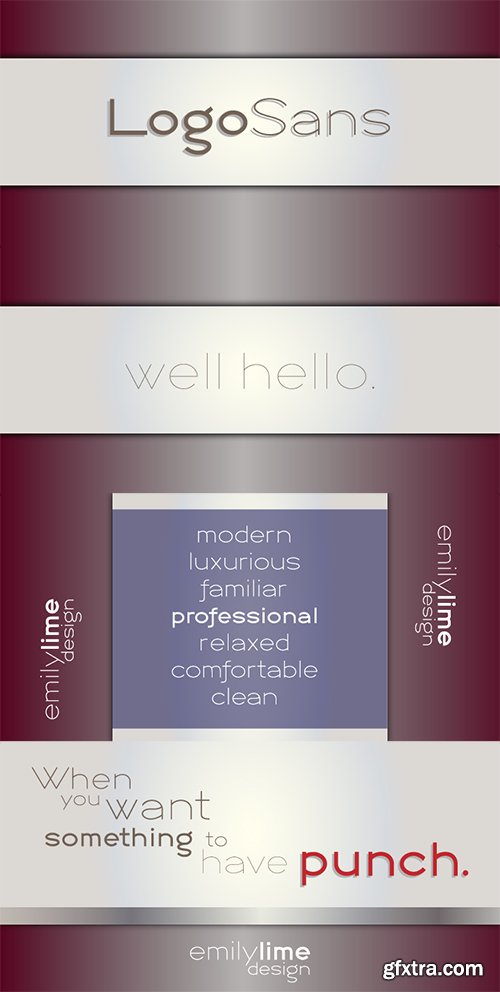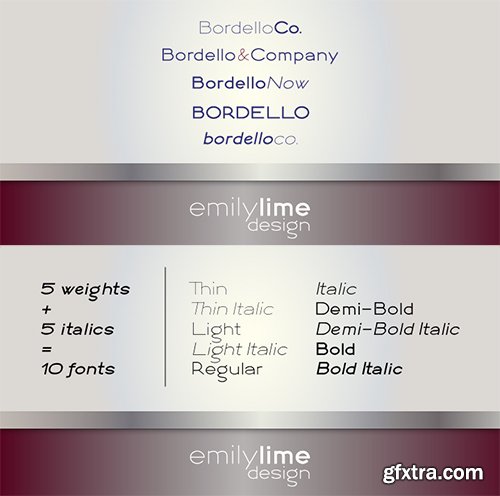
- Logo Sans is a clean, geometric sans-serif created with an obvious use in mind - logos (although quite suitable for longer texts as well). It is a clear, easy to read font that comes in a variety of weights & italics ...allowing for pleasing logo design combination and marketing pieces. Its wide characters and linear lines have a very modern, luxurious appeal. The family includes 5 weights...plus italics - for a total of 10 fonts.